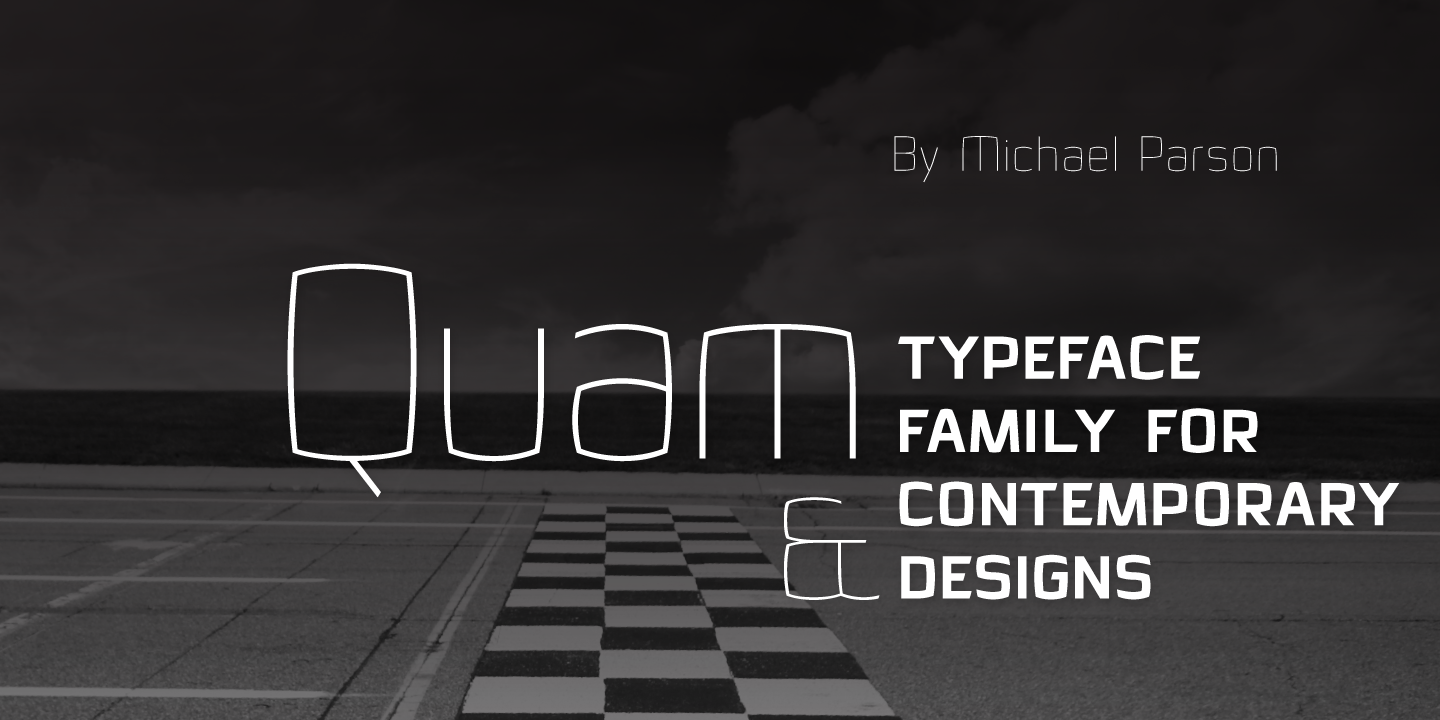
The Quam Font Free Download is an incredibly sleek and futuristic display typeface, making it an excellent choice for designs that demand innovation, technological sophistication, and a bold, modern presence. This dynamic font is perfectly suited for science fiction game titles, tech startup branding, automotive advertising, futuristic movie posters, digital product interfaces, and cutting-edge event promotions. Imagine it as the iconic typography for a virtual reality experience, providing the high-impact visual for an e-commerce platform specializing in AI, or giving a powerful, clean identity to an advanced robotics company. Its sharp angles, geometric precision, and often minimalist construction ensure your message is delivered with undeniable impact and a forward-thinking vision.
What makes Quam Font truly exciting is its ability to blend minimalist design with a strong, almost architectural presence. It's not just another display font; it embodies a sense of precision, innovation, and controlled power that makes it incredibly compelling. The clean lines and often subtly stylized letterforms contribute to its high-tech appeal, while maintaining surprising readability for its style. Designers will appreciate how it instantly injects a modern, high-performance aesthetic into any project, making it ideal for designs that need to convey strength, sophistication, and a glimpse into the future.
The Quam Font family typically focuses on its strong, impactful display style, often with a range of weights to enhance its versatility. You can often find variations such as Light, Regular, Bold, and sometimes even Black or Heavy options, allowing for significant control over visual impact and hierarchy. Some versions might also include Italic styles, offering an additional layer of dynamism. These focused yet comprehensive options ensure that the Quam Font Free Download provides ample creative opportunities to craft truly powerful, modern, and memorable designs that resonate with a cutting-edge sensibility.